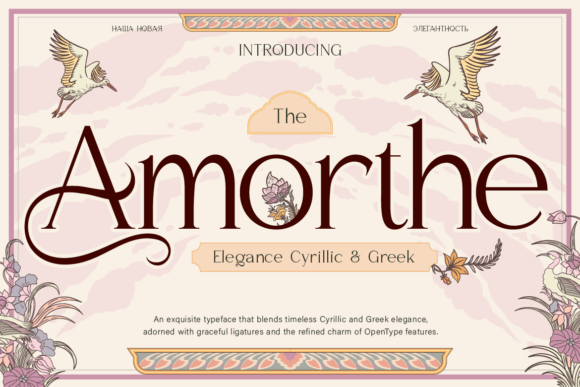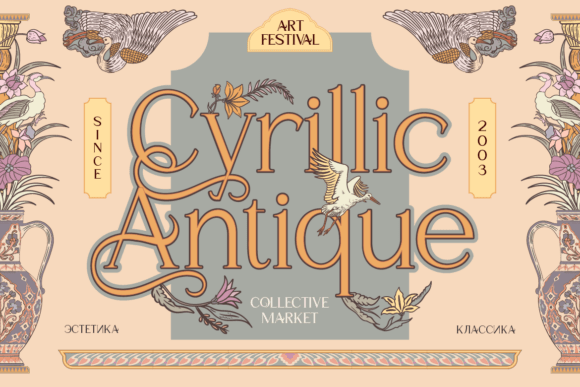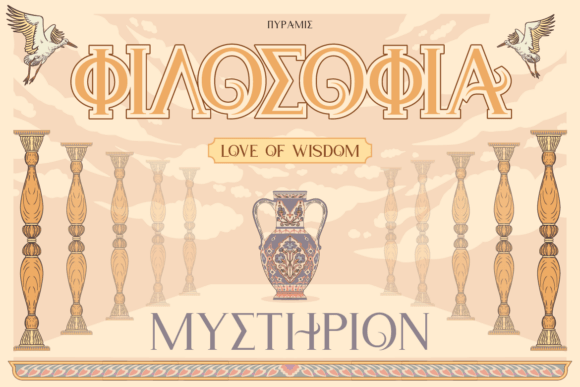
Amorthe Regular Font
Amorthe is where timeless elegance meets modern versatility—a typeface that speaks with sophistication and charm across languages, including Cyrillic, Greek, and more. Its refined serifs are brought to life with playful alternates that add a whisper of personality to every letterform.
With nine carefully crafted weights, from whisper-thin grace to bold confidence, Amorthe adapts seamlessly to everything from headlines to body text. It balances classic beauty with a fresh, contemporary edge, making it ideal for luxury branding, editorial layouts, and high-end packaging—think fine wine, artisanal chocolates, signature perfumes, and premium skincare.
If Amorthe were a person, she’d be Audrey Hepburn—graceful, multilingual, and full of subtle surprises that reveal themselves with every glance.